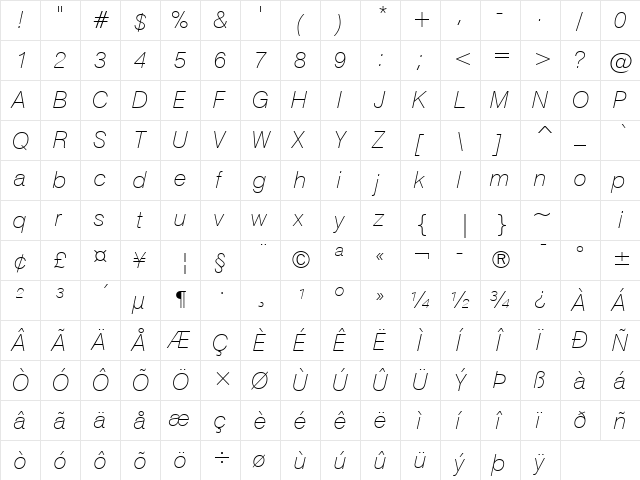
Swis721 Th BT Thin Italic
Design Context for Swis721 Th BT Typeface
Swis721 Th BT takes a measured approach to typography — its balanced proportions and neutral character make it a reliable workhorse for both digital and print work. The dynamic lean of this cut emphasises speed and emphasis in any layout. The delicate stroke weight brings airiness and refinement to layouts.
Pro Tip: Use Swis721 Th BT for emphasis, pull quotes, and subheadings where its slanted energy can add rhythm to the layout.